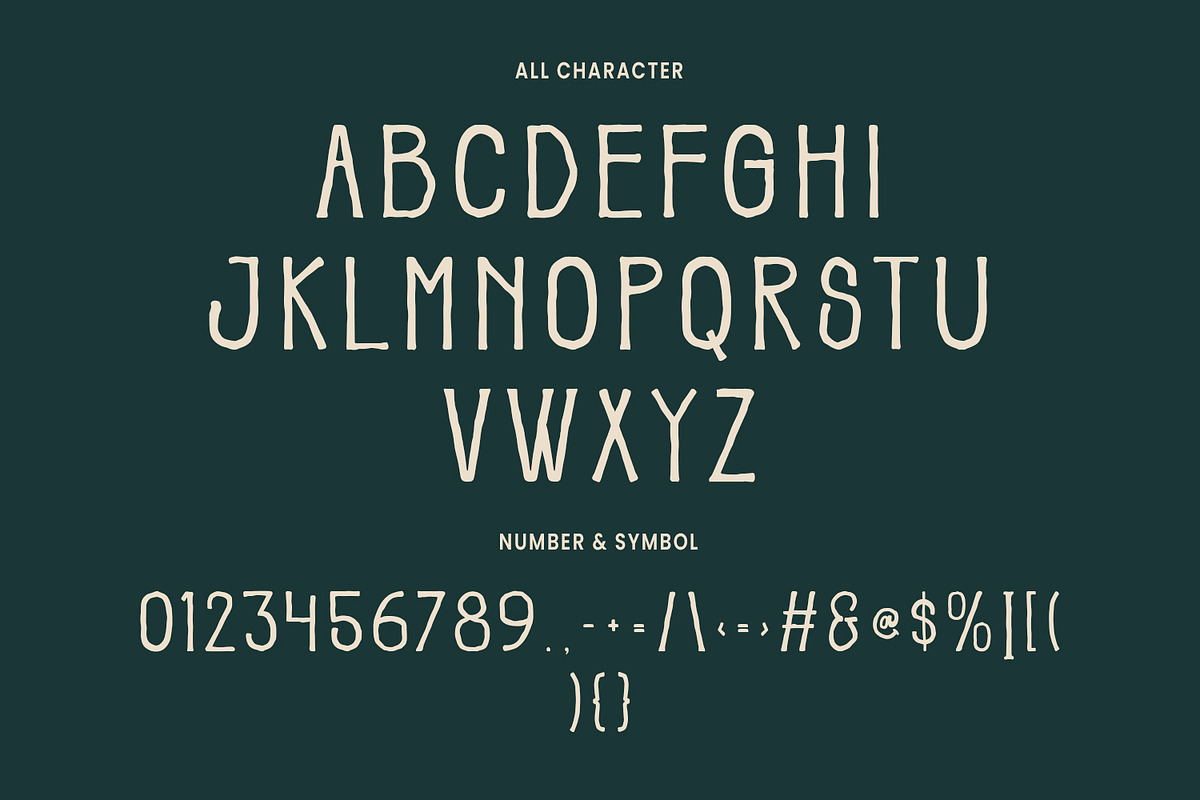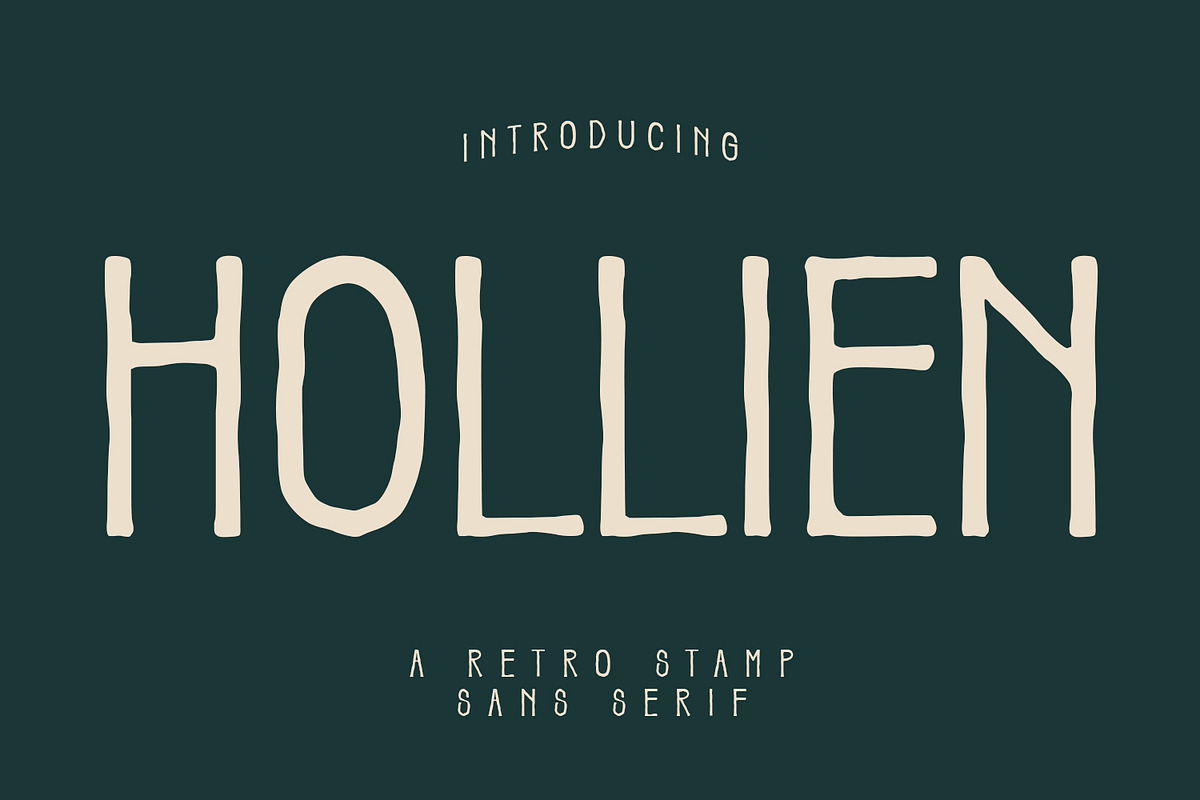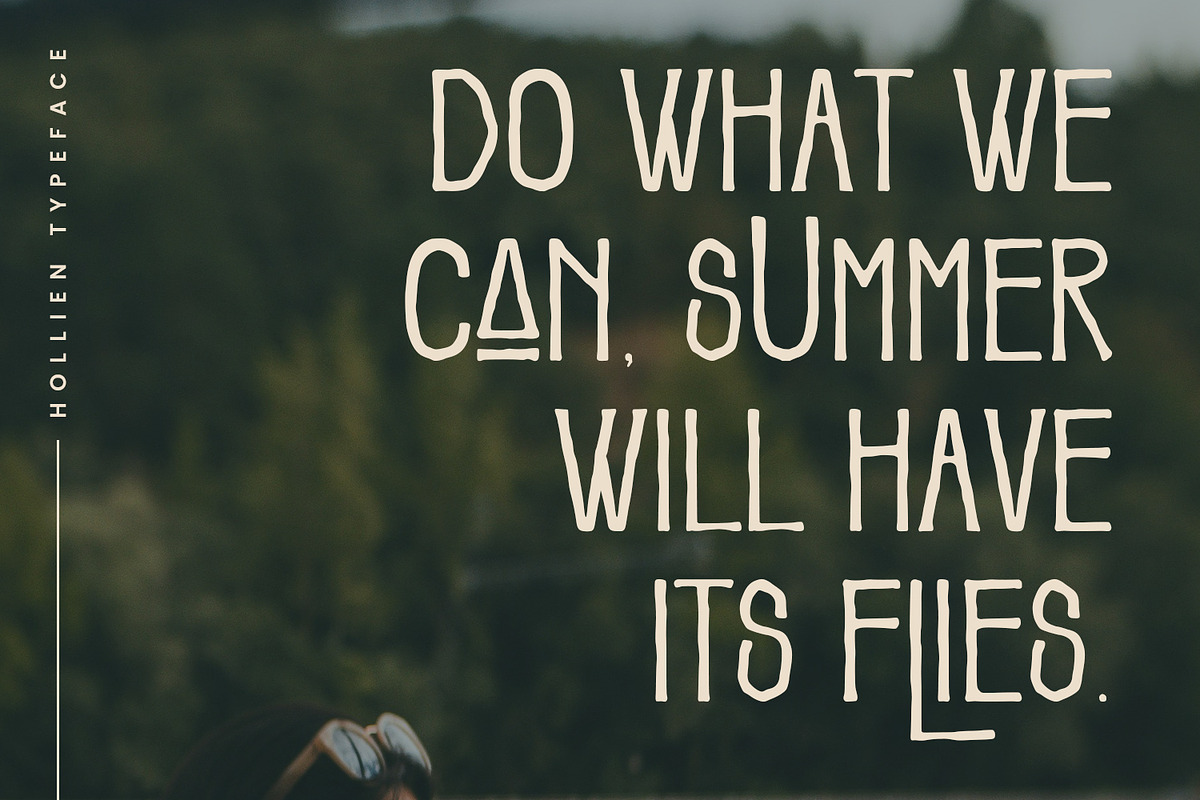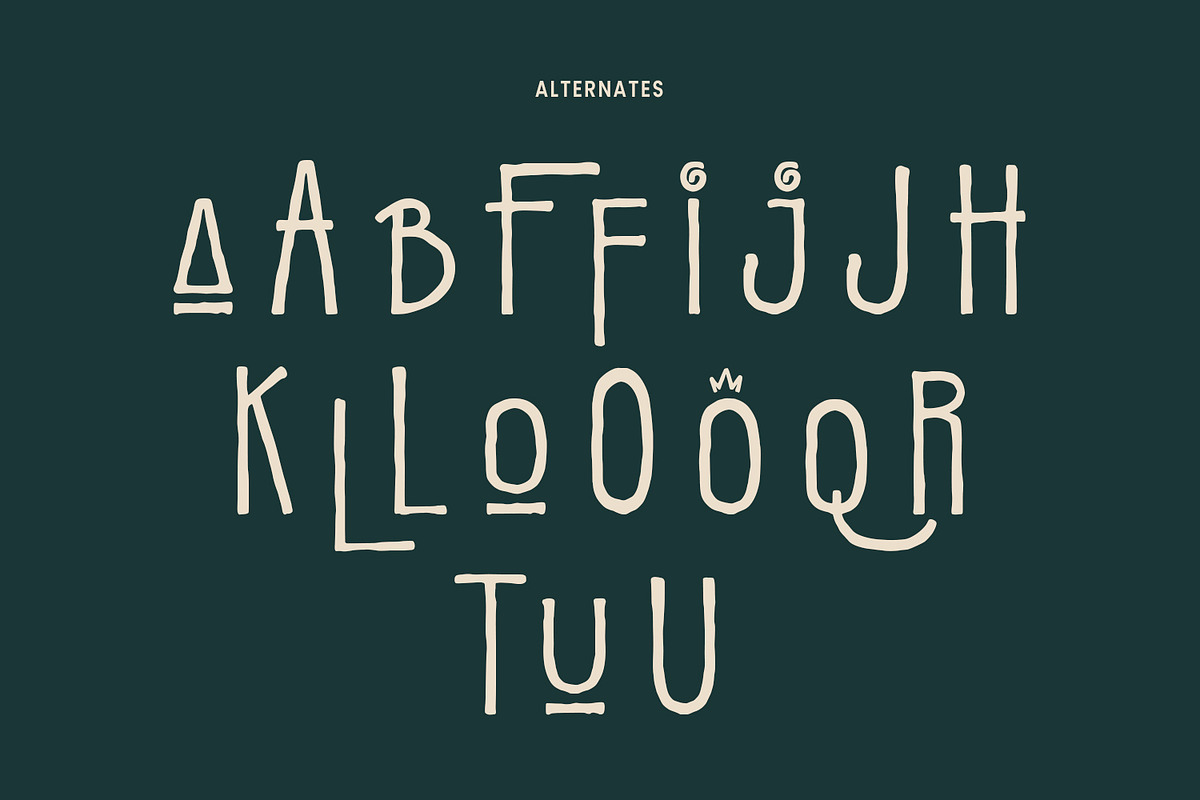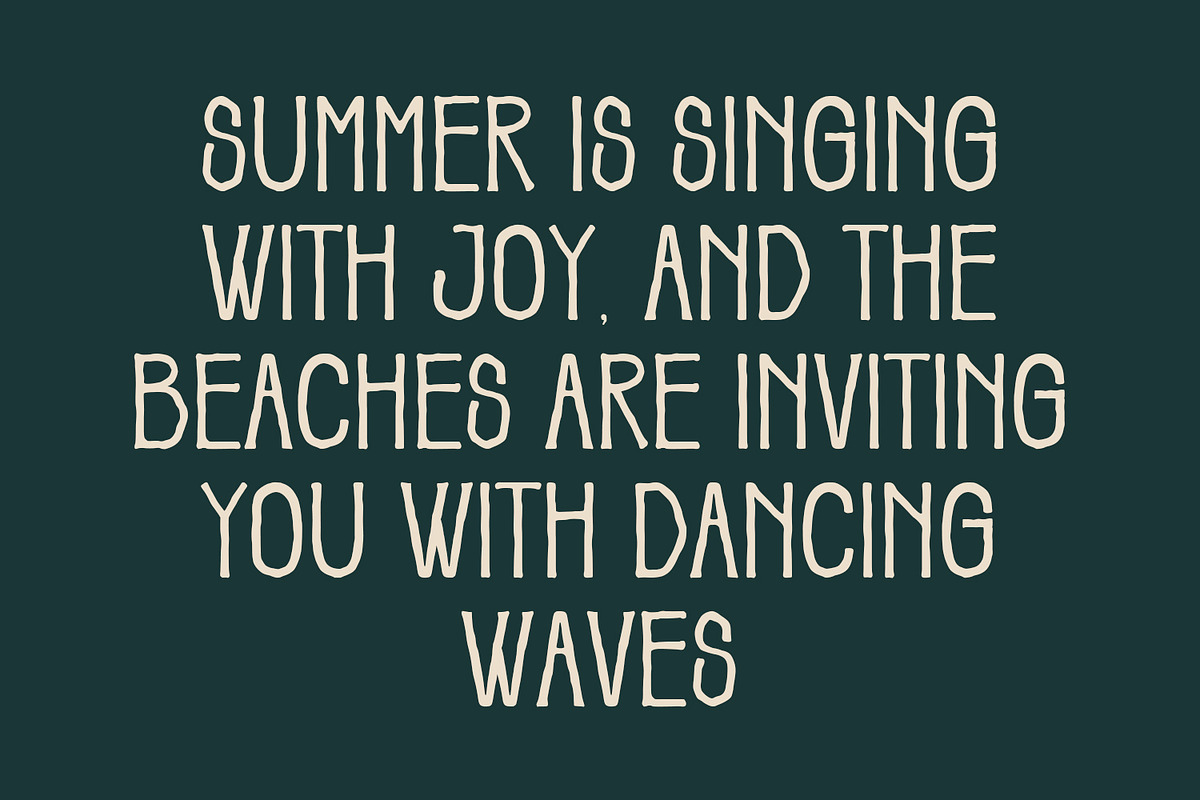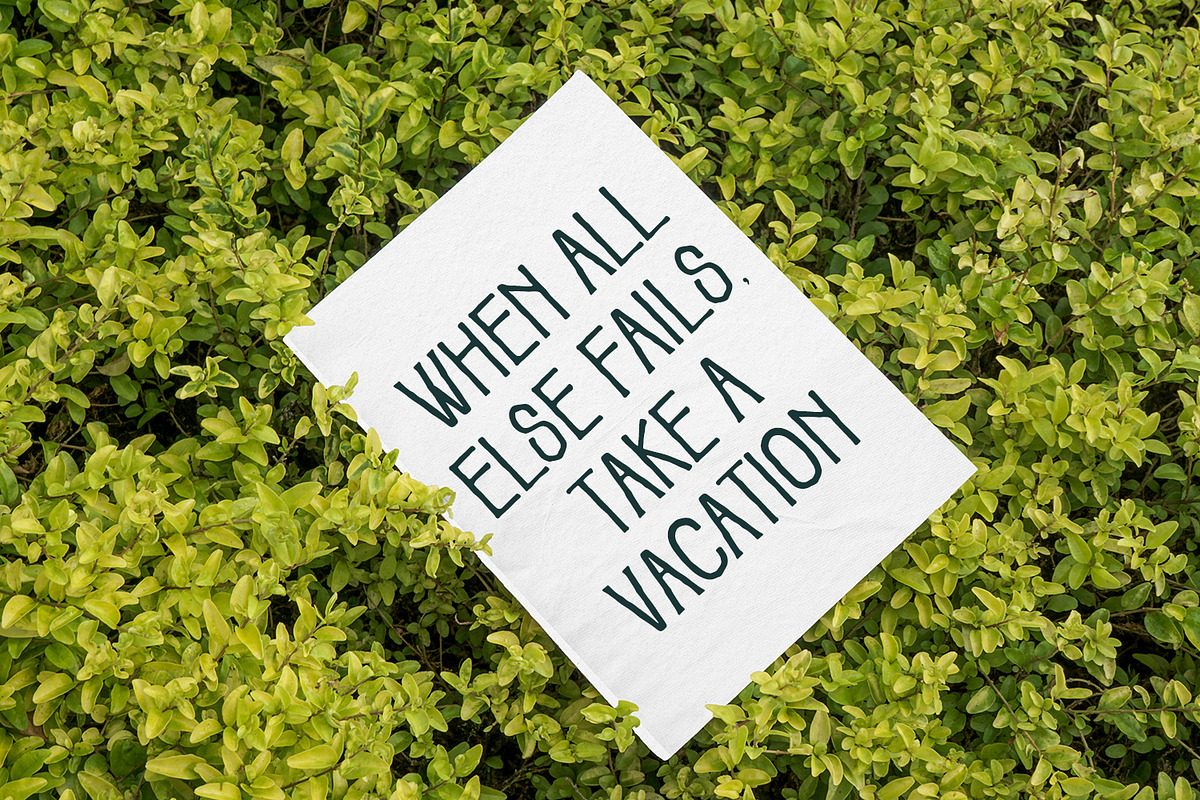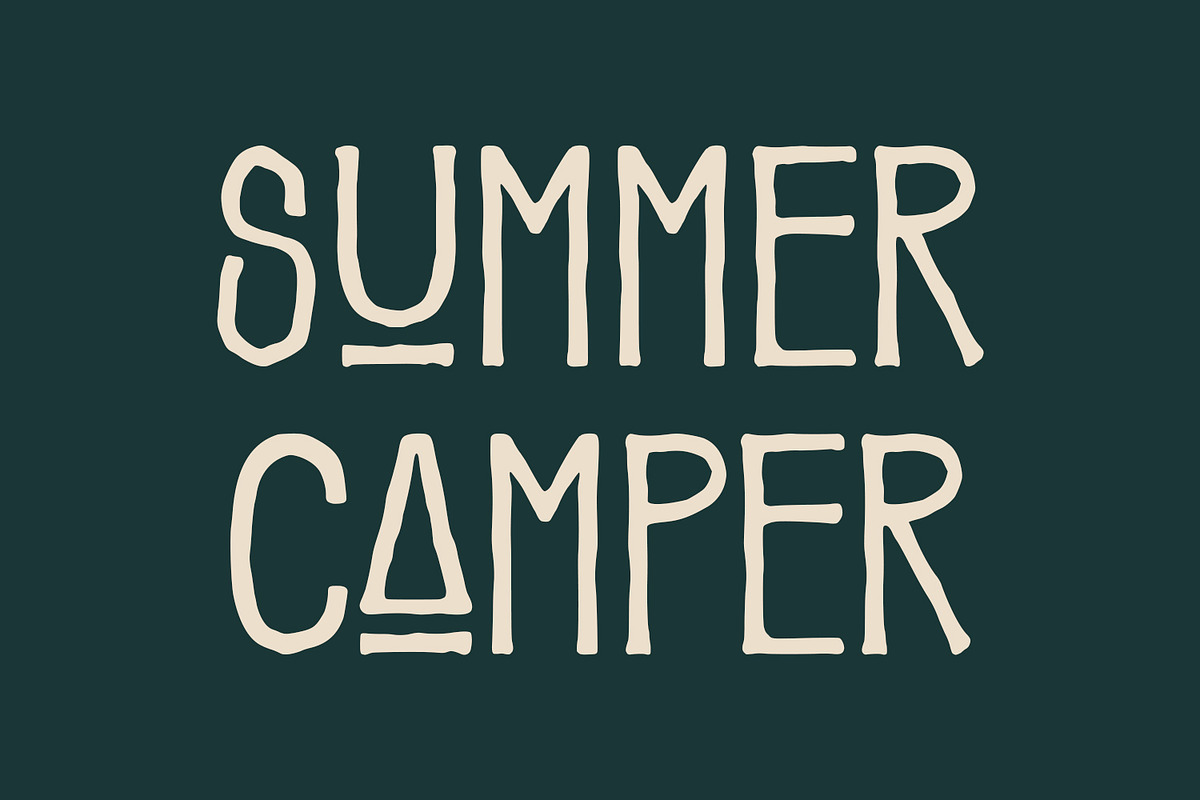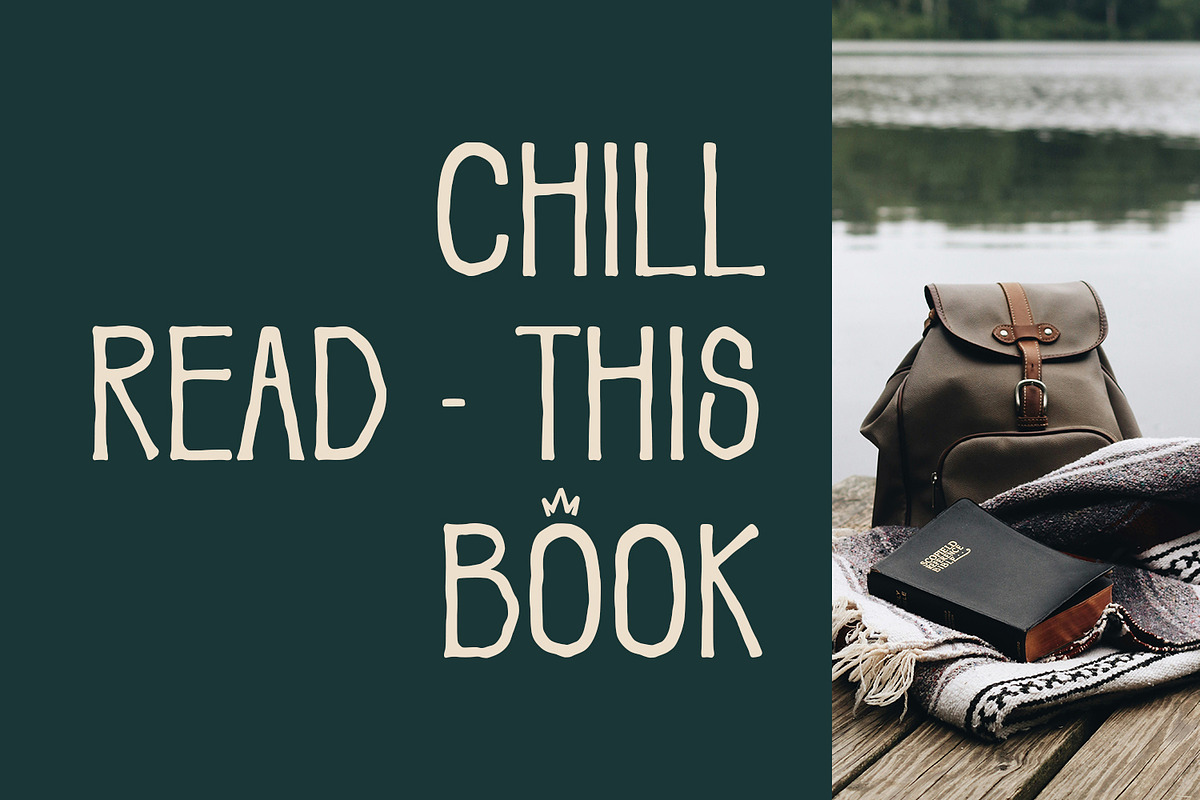
Hollien Stamp Sans Serif
Hollien is a Hand-lettered font inspired by the vintage 70's sign board, music, shop and movies, it has a rough stroke outline and then we fill it. Hollien includes opentype features Alternate. It support multilingual more than 100+ language. This font is good for logo design, Movie Titles, Books Titles and any awesome project you create. Make a stunning work with Hollien Rough sans font.